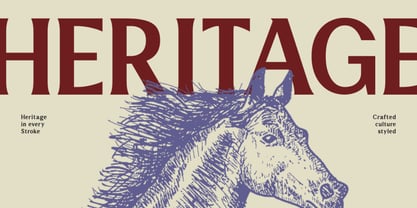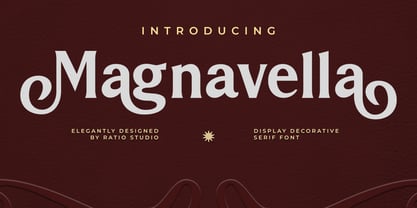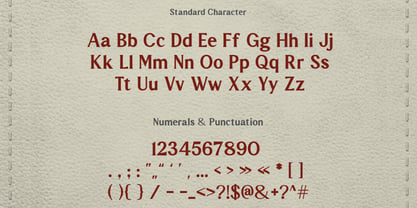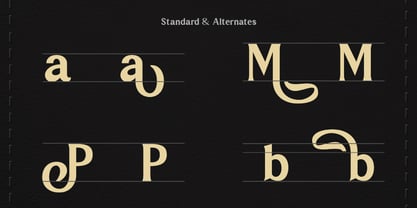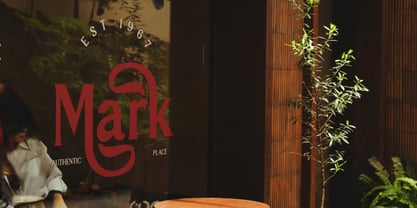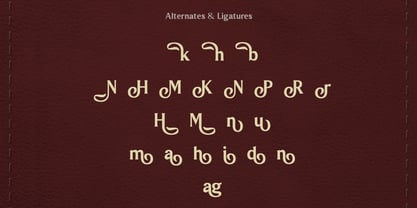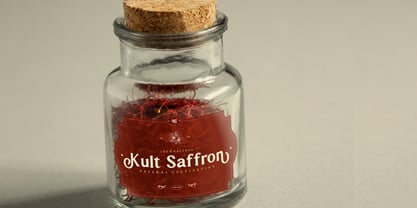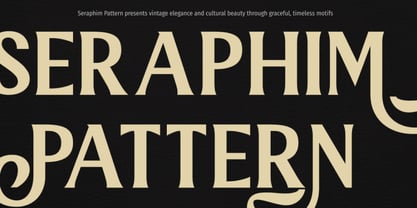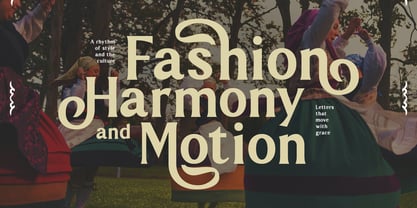
Magnavella
by Rasio Studio
The Magnavella Font Family was designed by Fajar Indra and published by Rasio Studio. Magnavella contains 1 styles.
Magnavella is a sophisticated decorative serif font that blends classic charm with elegant modern curves. Featuring graceful terminals and ornamental alternates, it evokes a luxurious, timeless feel suitable for refined branding, editorial titles, and artistic packaging. Each character carries distinctive swashes that add a touch of grandeur and visual balance to your compositions. This typeface includes uppercase and lowercase letters, punctuation, numerals, alternates, and stylistic ligatures, making it versatile for both traditional and contemporary projects. Magnavella brings an aura of refinement and drama, perfect for high-end identities, vintage posters, wedding invitations, and elegant display typography.
Designers: Fajar Indra
Publisher: Rasio Studio
Foundry: Rasio Studio
Design Owner: Rasio Studio